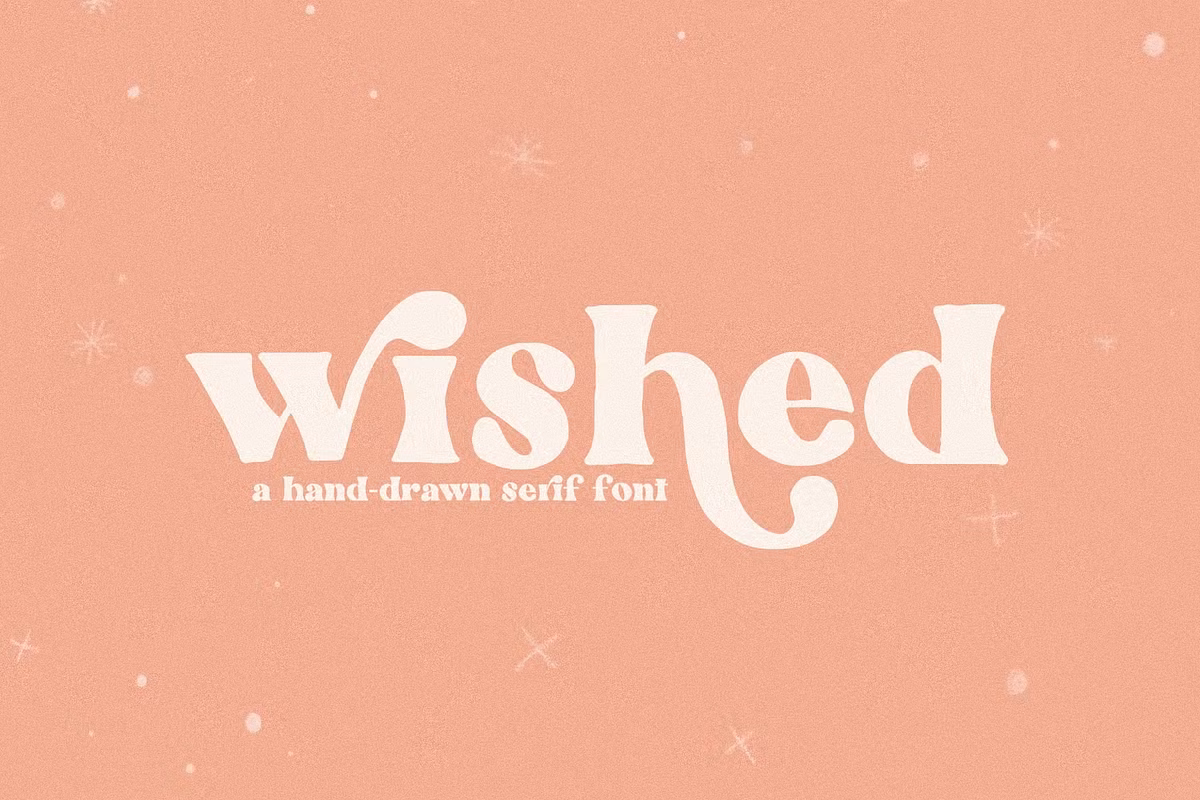
Wished | Hand-drawn Serif Font Free Download
Wished | Hand-drawn Serif Font Free Download is a whimsical and artistic typeface that combines the elegance of serifs with the charm of handcrafted lettering. Ideal for greeting cards, book covers, creative branding, and lifestyle content, it adds a personal, storybook-like touch to any project. Please note that you must purchase this font for commercial use, but it is available as a free download for testing purposes. Bring your ideas to life with warmth and creativity using Wished | Hand-drawn Serif Font Free Download, and add a touch of magic to your next design.